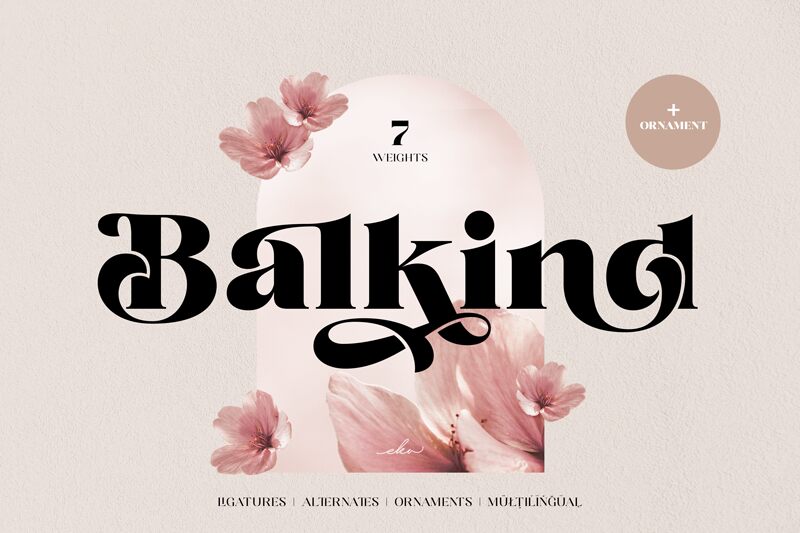
Balkind-Demo
Balkind is a free serif font created by Eka Hermawan. It presents a great combination of style and ease which makes it perfect for a wide range of designs including posters, banners, headlines, branding materials, and web design projects.